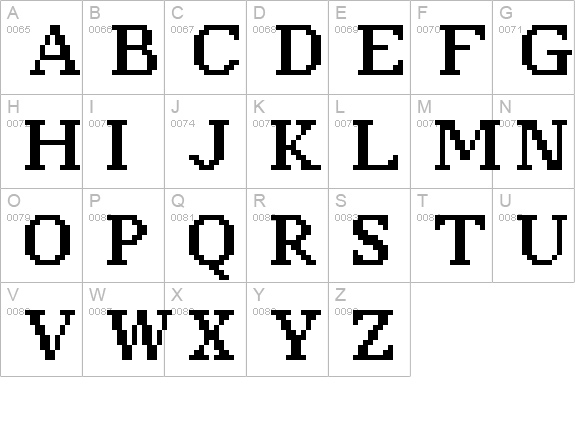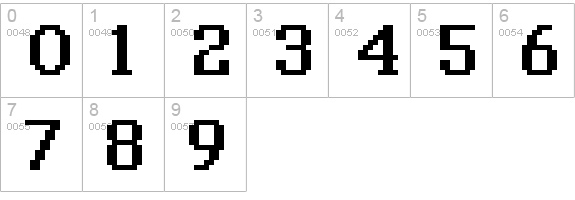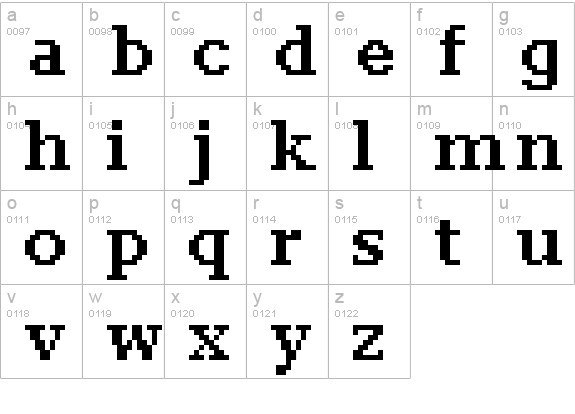
Introducing Classic 10_66 font, a timeless typeface that exudes elegance and sophistication. With its clean lines and classic design, this font is perfect for a wide range of projects, from invitations to branding to editorial design. The Classic 10_66 font is versatile and easy to read, making it a popular choice for both print and digital applications. Best of all, this font is available for free download at FontsMarket.com. You can easily add this stylish font to your collection without any cost, allowing you to elevate your designs without breaking the bank. Don't miss out on the opportunity to enhance your projects with the Classic 10_66 font - download it today and start creating stunning visuals that stand out from the crowd.